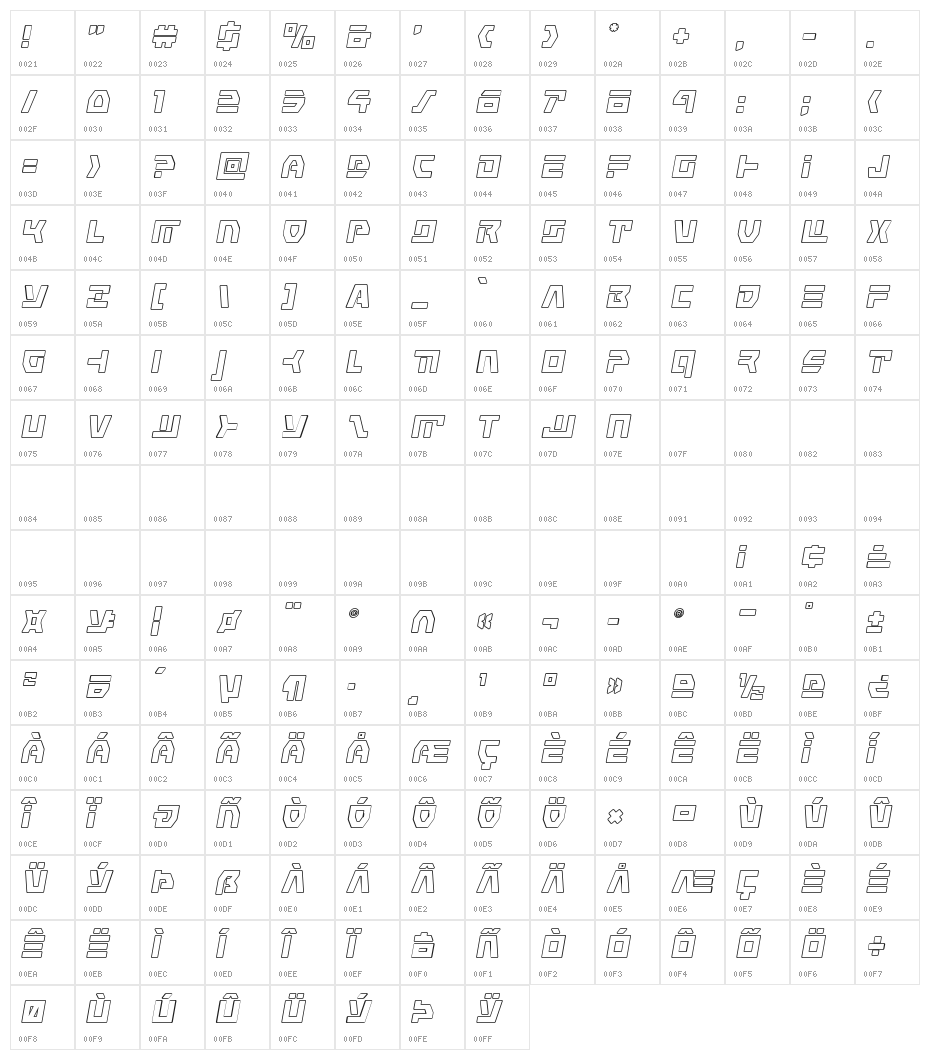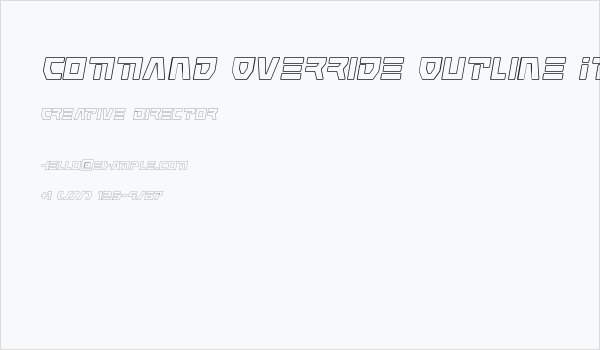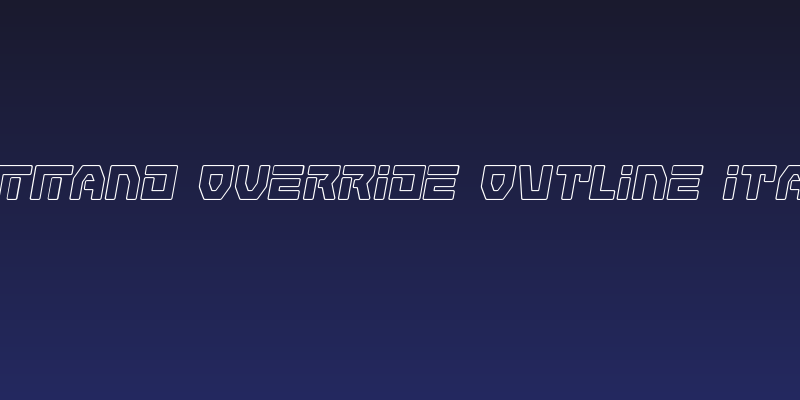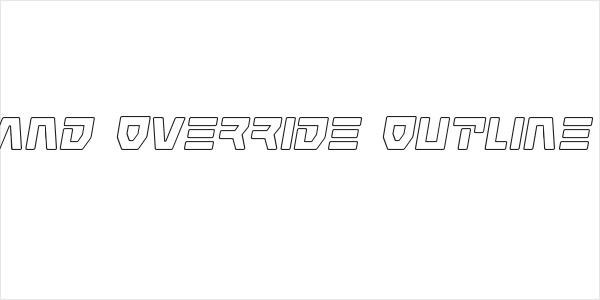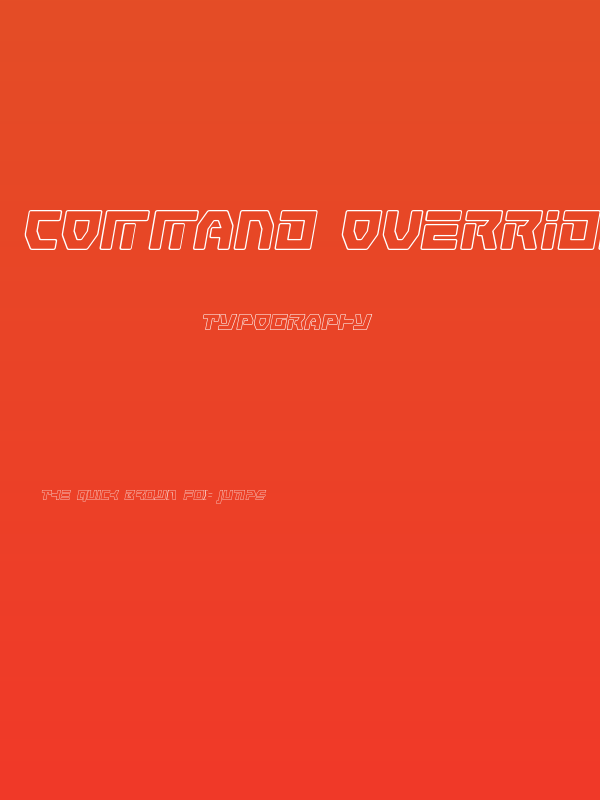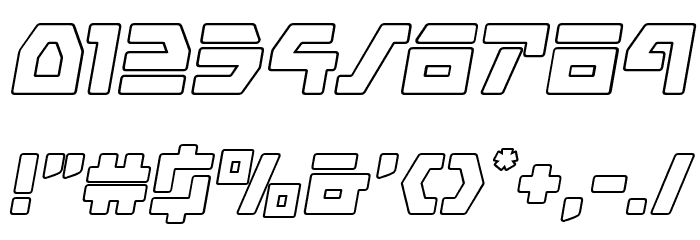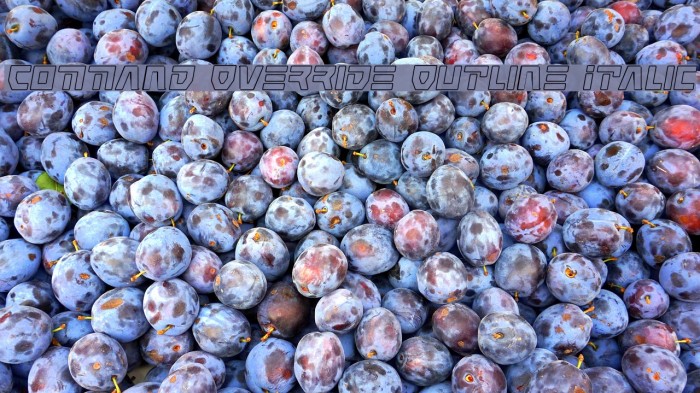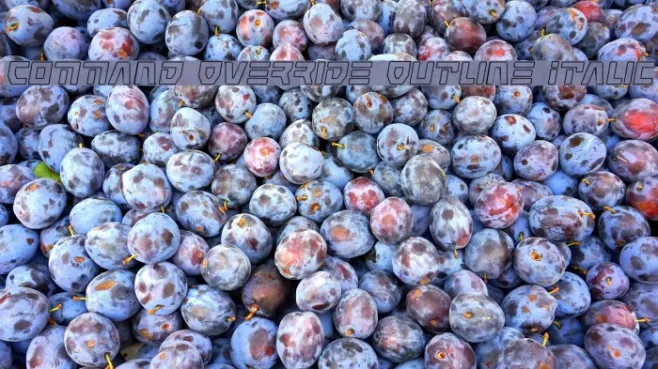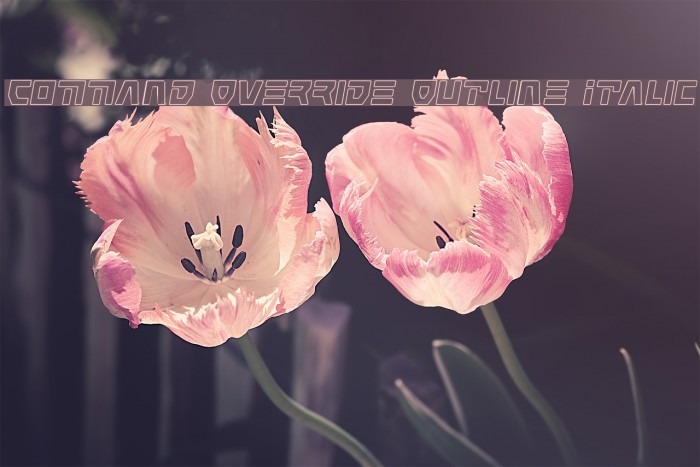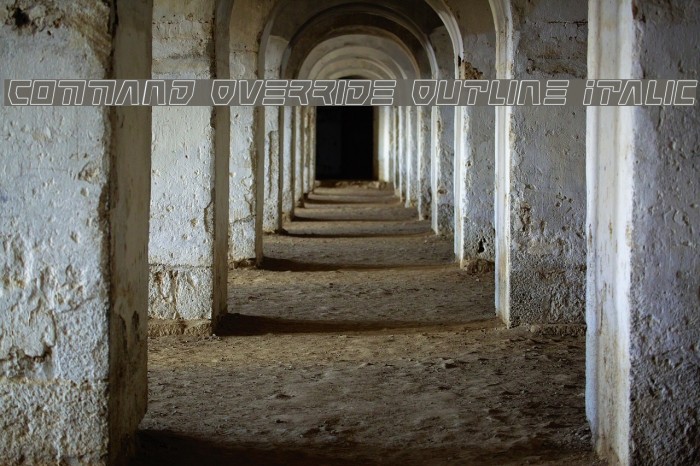
Command Override Outline Italic Font
Command Override Outline Italic Description
This font features a futuristic and geometric design with an outline style that gives it a distinct, modern appearance. The characters are constructed with bold, angular lines that create a sense of movement and dynamism. The italic slant adds to its forward-thinking aesthetic, making it ideal for projects that require a cutting-edge look. The uppercase and lowercase letters maintain a consistent style, with uniform line thickness and spacing that ensure readability despite the complex design. Numbers and special characters are crafted with the same attention to detail, providing a cohesive visual experience across all glyphs.
| Proposed Projects | Ideal for sci-fi themed designs, technology branding, video game titles, and modern advertising campaigns. |